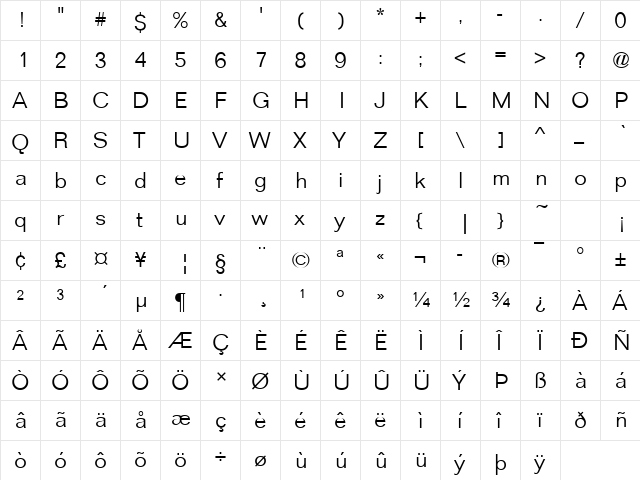
FolioTLig Regular
Design Context for FolioTLig Typeface
FolioTLig offers clean, dependable letterforms without strong stylistic allegiance, making it a practical choice for designers who need flexibility.
Pro Tip: Use FolioTLig in both headline and body roles to test its range before committing to a single application.